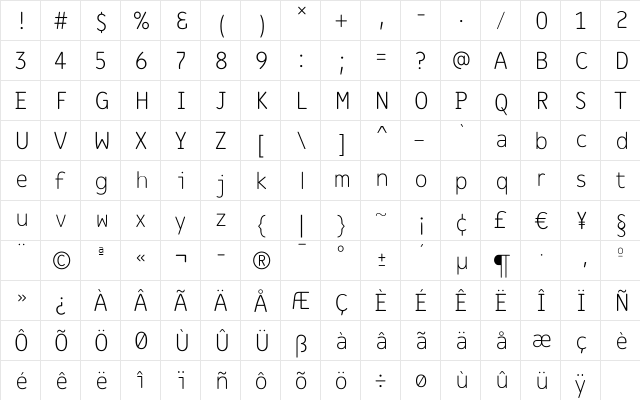
Message-ThinRounded Regular
Design Context for Message-ThinRounded Typeface
Message-ThinRounded uses gentle rounded endings to create a warm, inviting typographic personality — less corporate than geometric sans, more refined than playful display fonts. The delicate stroke weight brings airiness and refinement to layouts.
A natural fit for tech startups, health and wellness brands, children's products, and friendly consumer apps.
Font Pairing: Pairs well with a rounded or humanist sans for body copy, maintaining the friendly tone without relying on Message-ThinRounded to carry extended reading.
Pro Tip: Pair Message-ThinRounded with a geometric sans for a balanced system — the rounded softness works as a warm counterpoint to harder-edged companions.